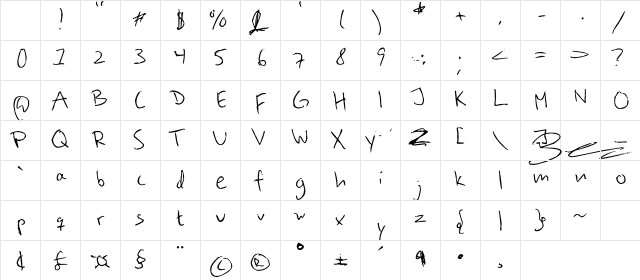
Complete Beehives Are Sticky Regular glyph index. Displaying only characters natively supported by Beehives Are Sticky Regular font.
Beehives Are Sticky is a composed and adaptable typeface that performs quietly and consistently across a wide range of design contexts.